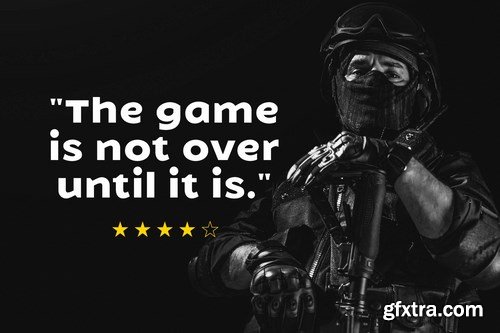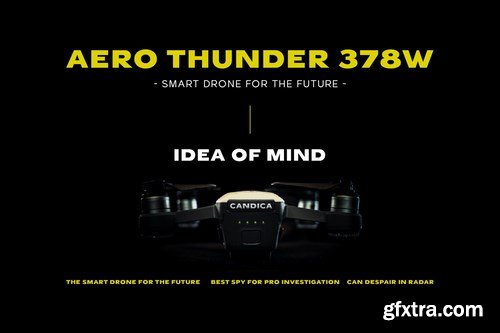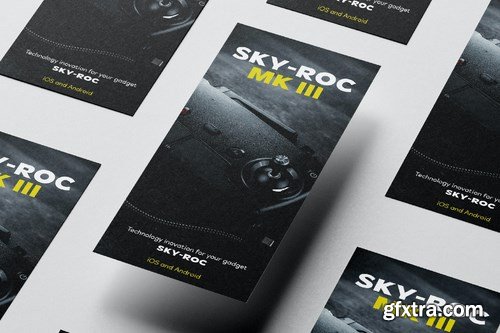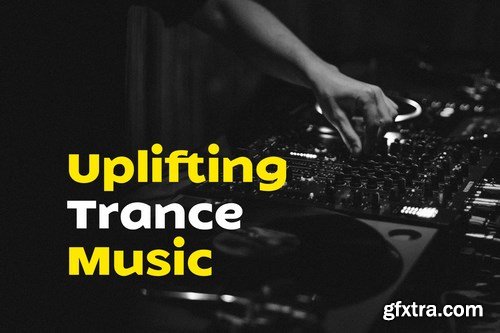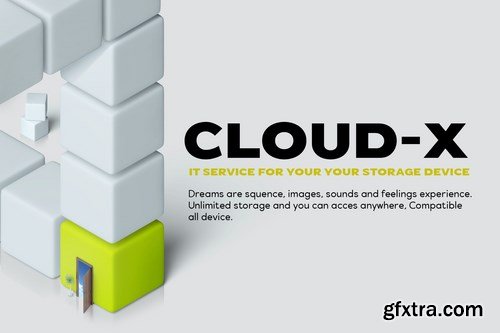
Candice - Heavy Bold Expanded Display Sans - Sport Racing and Military Game Font
Candice Sport Game Sans Serif Display Font is perfect for your up coming projects. Such as logo branding, editorial design, esport design, Fitness Gym Branding, game / gaming industry, sport racing, super car brand, esport branding, music poster, website design, modern advertising design, poster quote, book/cover title, special events and any more.